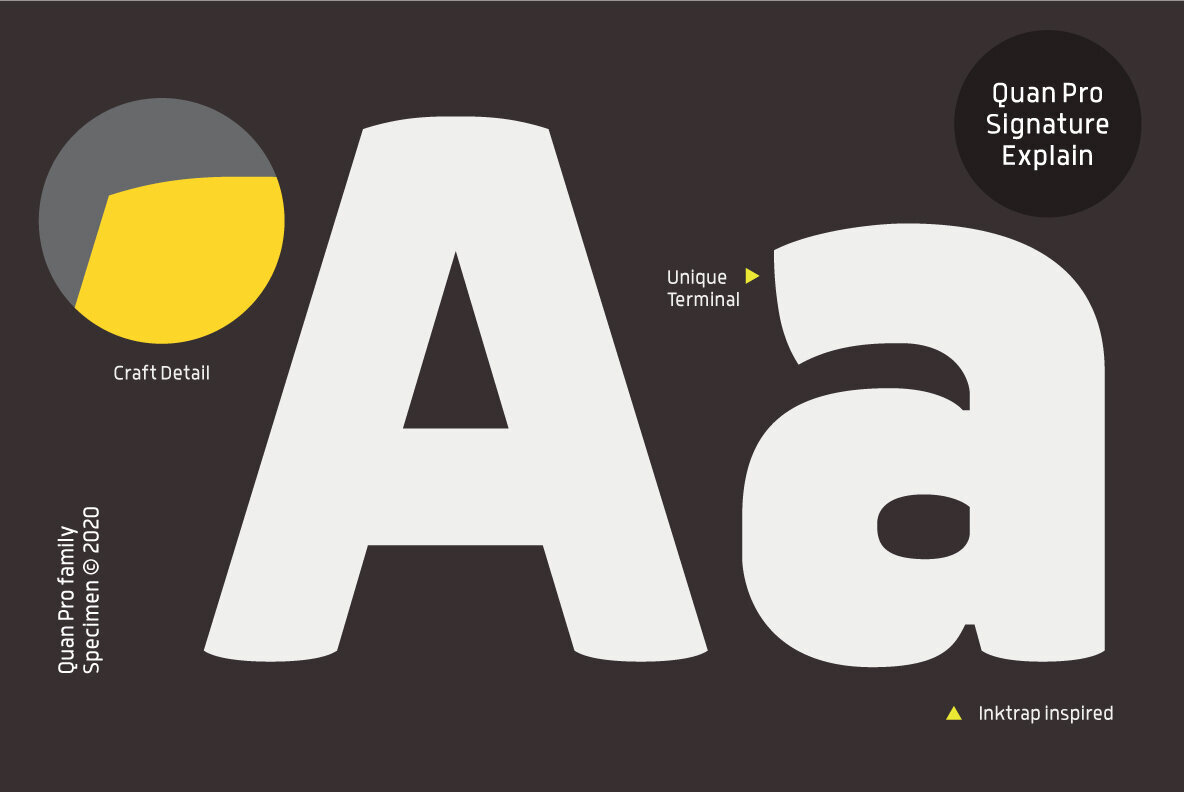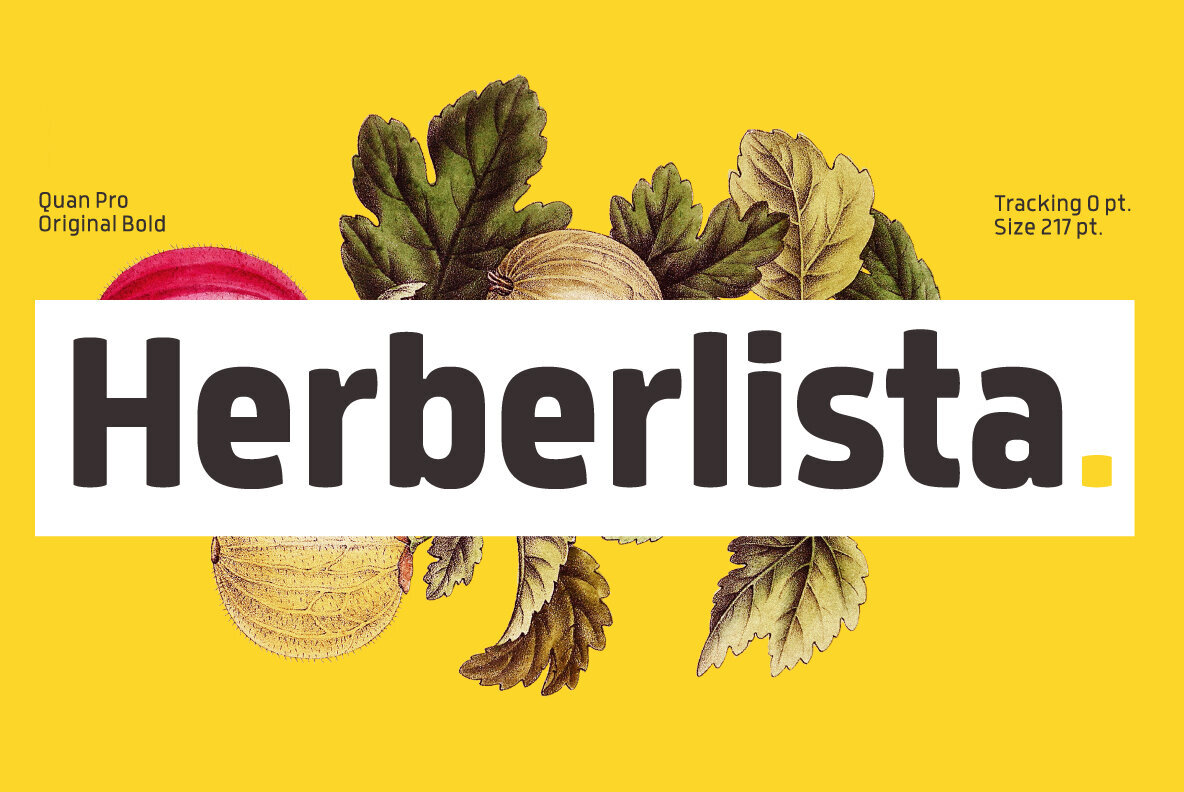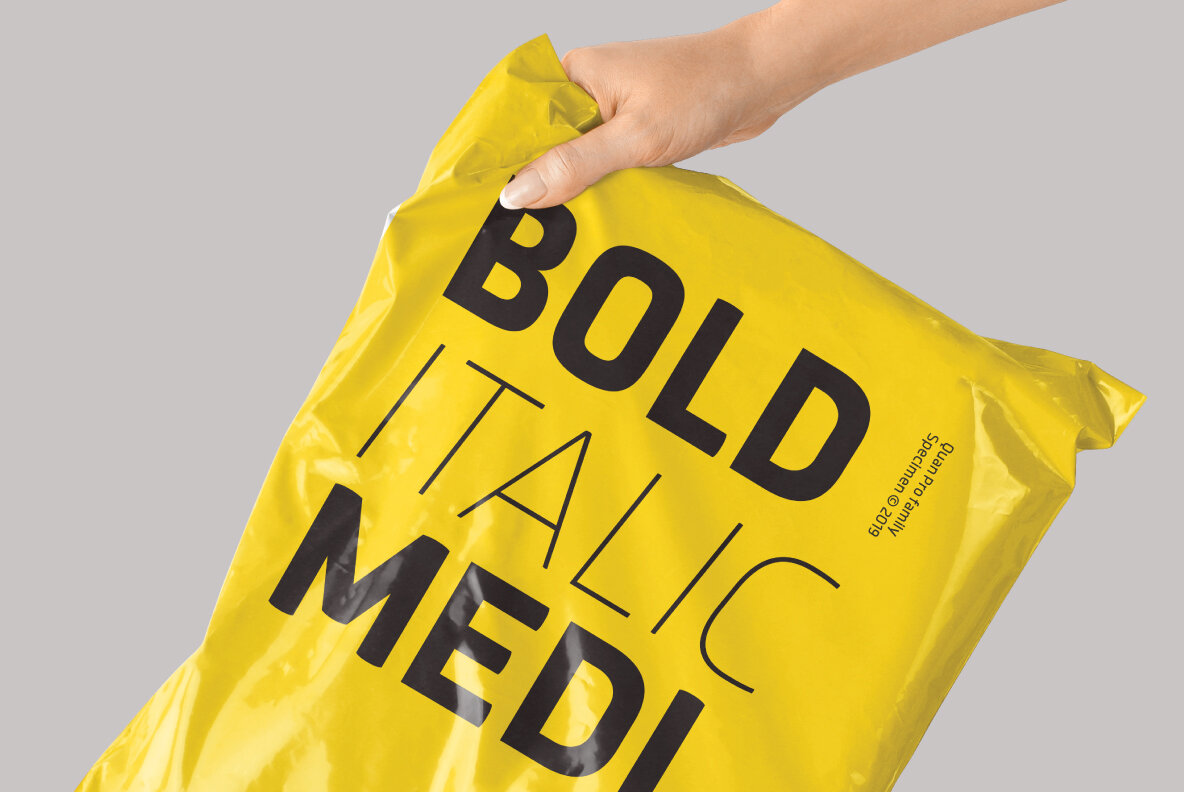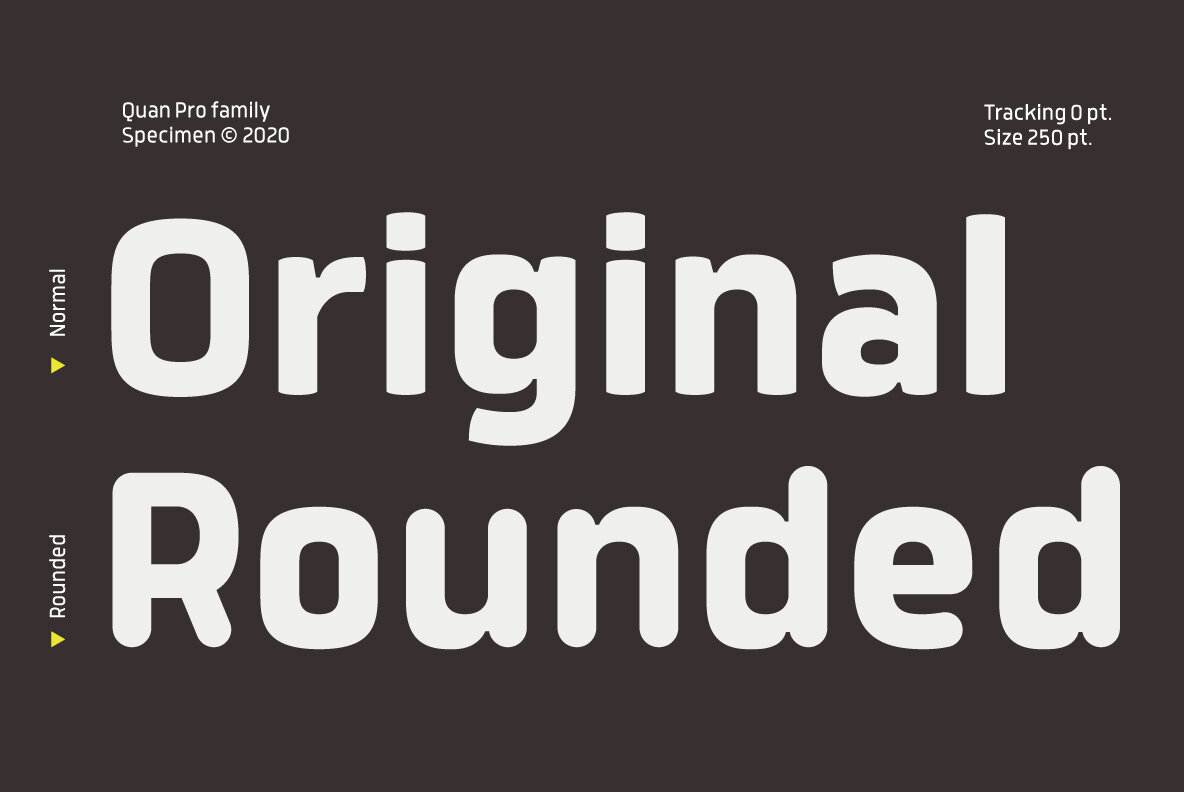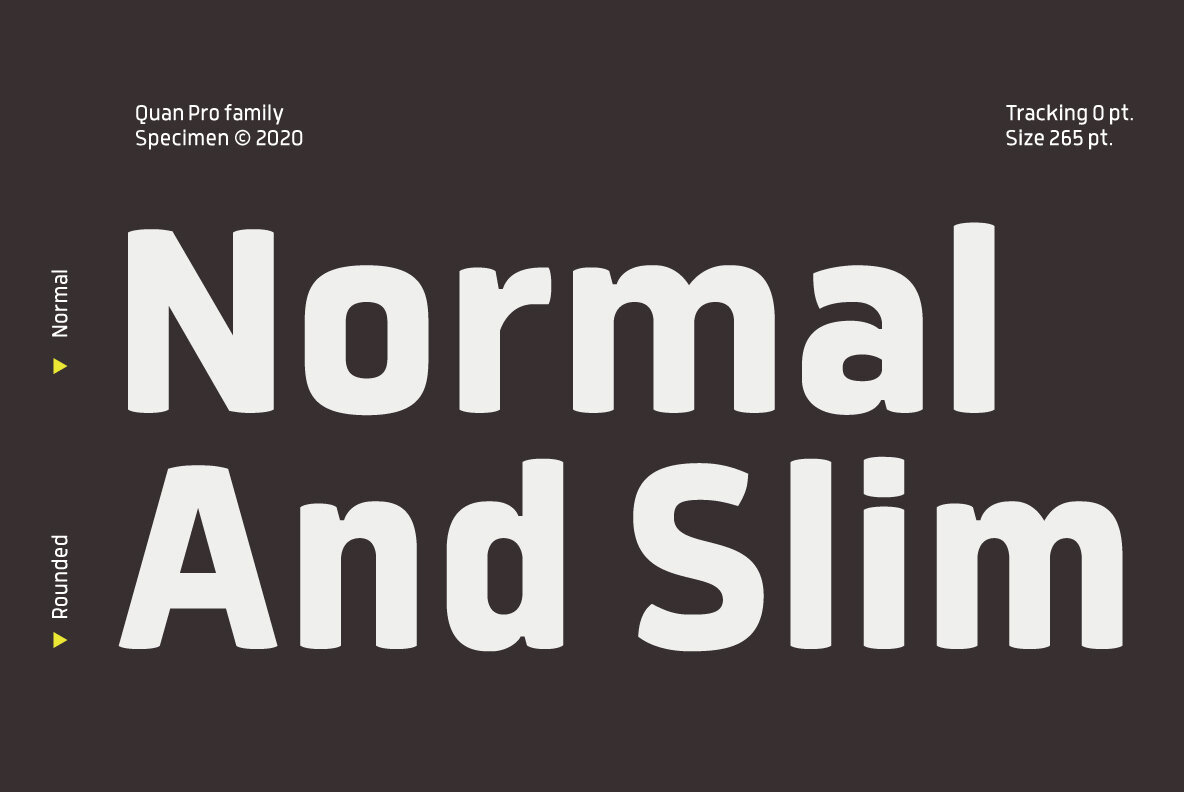
Quan Pro Font
The new Quan Pro font is a refreshed version of the popular family from Typesketchbook. It includes an updated structure, corners and shapes for each letter--making it perfect in many different applications like headlines or small texts!
Located in the capital city of Thailand, Chatnarong Jingsuphatada started his type design career while working as a graphic designer. Throughout his career, whenever he was unable to find exactly what he needed for his own design projects, he began to create new typefaces rather than settle for ones that didn’...